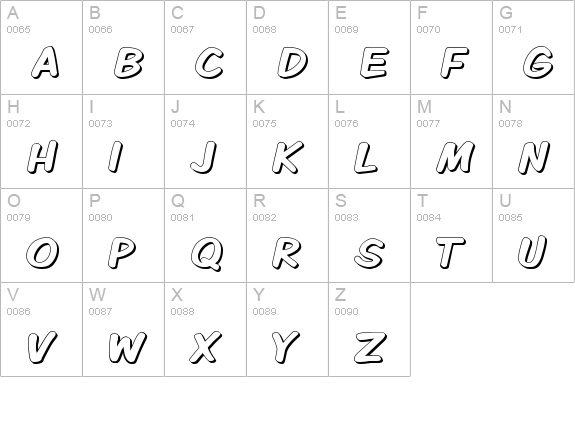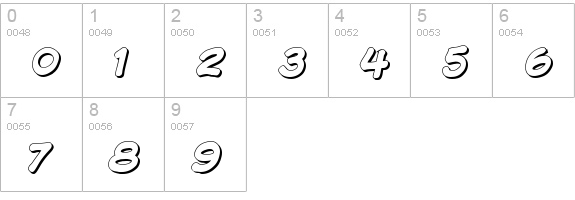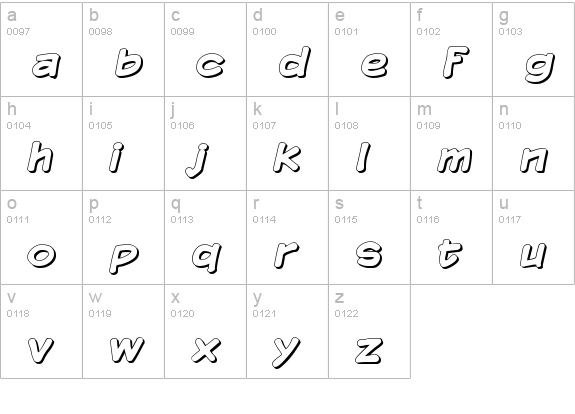
Komika Display - Shadow is a captivating and bold display font that exudes a sense of modernity and sophistication. The unique shadow effect adds depth and dimension to each letter, making it perfect for eye-catching headlines, logos, and branding projects. With its sleek and stylish design, this font is sure to make a lasting impression on any project. The best part is that Komika Display - Shadow is available for free download at FontsMarket.com. Whether you're a designer looking to add a touch of creativity to your work or simply a font enthusiast wanting to expand your collection, this font is a must-have. Don't miss out on the opportunity to elevate your designs with this stunning typeface. Download Komika Display - Shadow today and unleash your creativity!